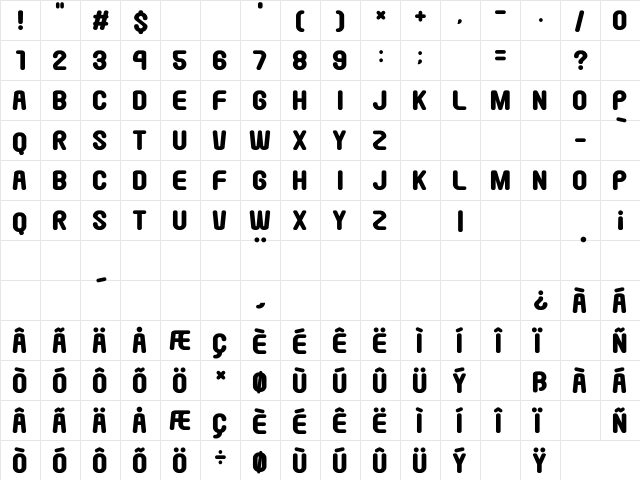
Round Pop Regular
Design Context for Round Pop Typeface
Round Pop softens its letterforms with rounded terminals, giving it an approachable, friendly quality that works well in consumer-facing and digital contexts.
A natural fit for tech startups, health and wellness brands, children's products, and friendly consumer apps.
Font Pairing: Pairs well with a rounded or humanist sans for body copy, maintaining the friendly tone without relying on Round Pop to carry extended reading.
Pro Tip: Pair Round Pop with a geometric sans for a balanced system — the rounded softness works as a warm counterpoint to harder-edged companions.